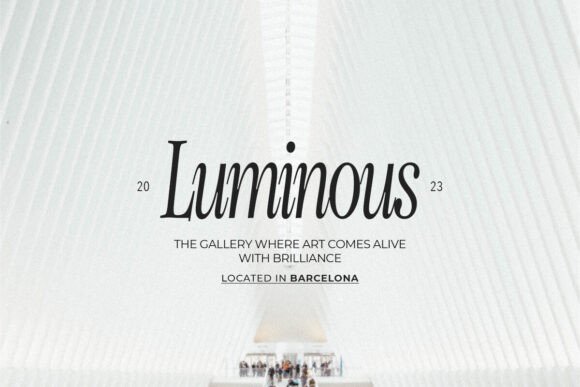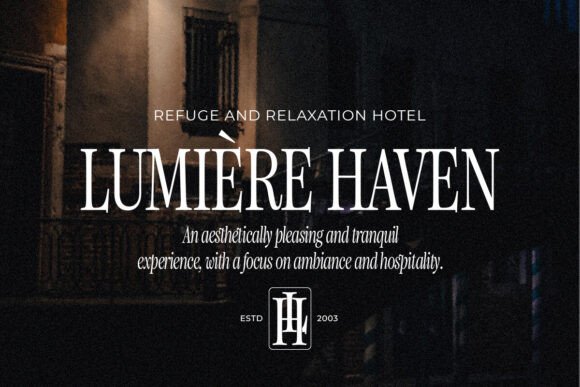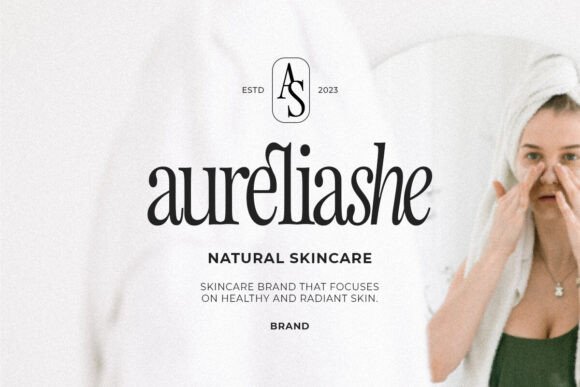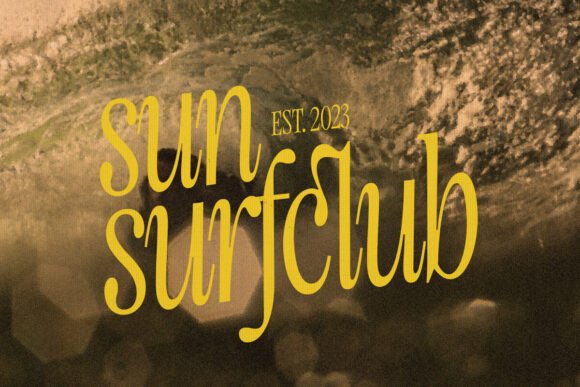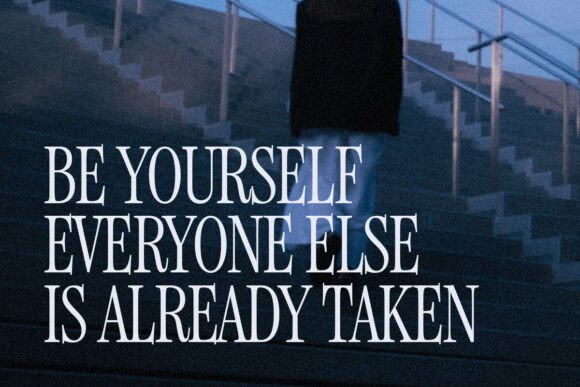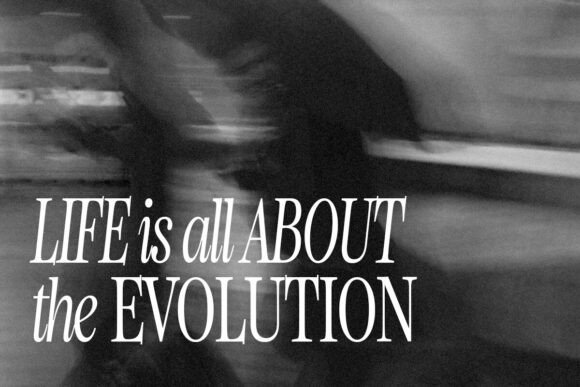
Discovering the Timeless Elegance of Elyanor Font
As a designer, there’s no feeling quite like stumbling upon the perfect font for a creative project. The ‘aha’ moment when everything comes together, and your vision is finally brought to life. For me, that moment often involves a refined display serif font that exudes timeless beauty and sophistication. That’s exactly what you get with the Elyanor Font, a game-changing design resource that elevates any project to new heights.
Whether you’re working on a high-end branding campaign or a luxury packaging design, Elyanor Font is the perfect choice to convey elegance and refinement. With its slender proportions, graceful curves, and soft italics, this font is sure to leave a lasting impression on your audience. And the best part? It’s available for a free download, so you can add it to your design arsenal today and start creating stunning visuals with ease.
Key Features of Elyanor Font
- Features a transparent background, making it ideal for use on various design elements.
- Comes in a single font size, making it easy to incorporate into various design layouts.
- Perfect for use in digital design, including web design, graphic design, and UI/UX projects.
- Unique, elegant, and sophisticated font style that adds a touch of sophistication to any creative project.
Honest Review: Elyanor Font
As a designer, I’m always on the lookout for high-quality design resources that can elevate my creative projects. The Elyanor Font has been a recent addition to my toolkit, and I’m excited to share my honest review.
- ✨ Beautiful, elegant script style that’s perfect for invitations, wedding stationery, and other special occasions.
- ✨ High-quality design that looks great on both transparent backgrounds and solid colors.
- ⚠️ Limited language support, which may be a concern for designers who work with non-English texts.
- ⚠️ No bold or italic weights, which may limit its versatility in certain design applications.
Overall, I’m impressed with the Elyanor Font’s design quality and its potential to add a touch of elegance to creative projects. While it may have some limitations, it’s still a valuable addition to any designer’s toolkit. If you’re looking for a high-quality script font for your next design project, the Elyanor Font is definitely worth checking out.
To get the most out of Elyanor Font, use it in combination with other design resources, such as images and graphics. Experiment with different font sizes, colors, and styles to create unique and eye-catching designs. Additionally, consider using Elyanor Font in conjunction with a transparent background to add an extra layer of creativity to your project.
Elyanor Font is commonly used in creative projects, such as graphic design, digital art, and typography. It’s also a popular choice for presentations, documents, and websites that require a high-quality and professional font.
The Elyanor Font is a high-quality design resource that can be customized using various design software, such as Adobe Illustrator or Photoshop. You can adjust the font size, color, and style to fit your creative project’s requirements. Additionally, the font’s transparent background makes it easy to layer over images or other design elements.